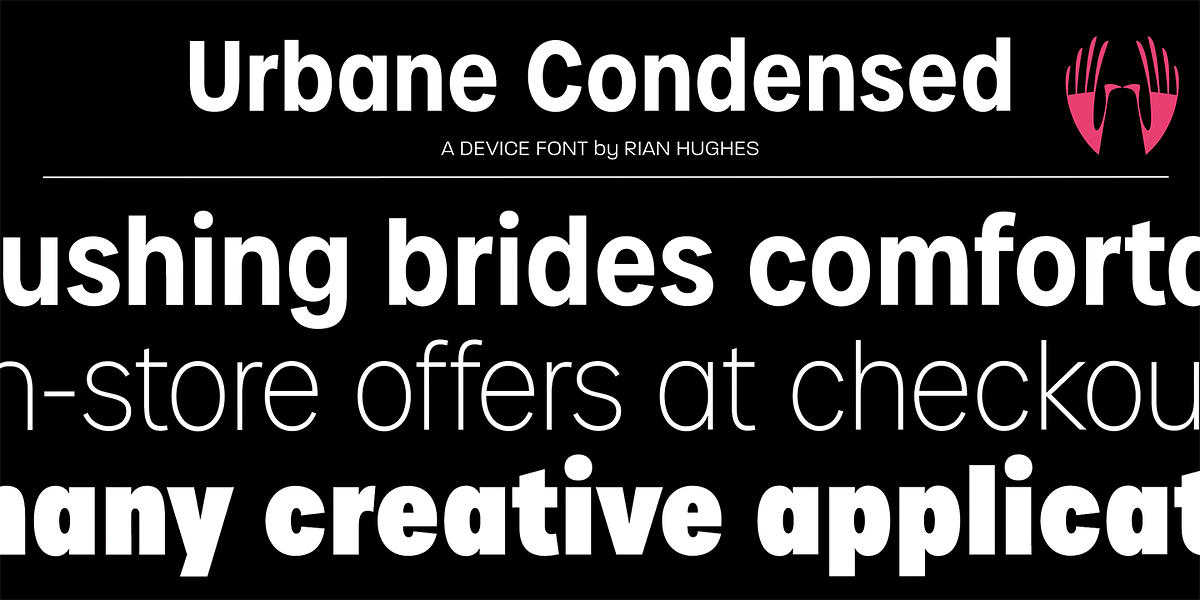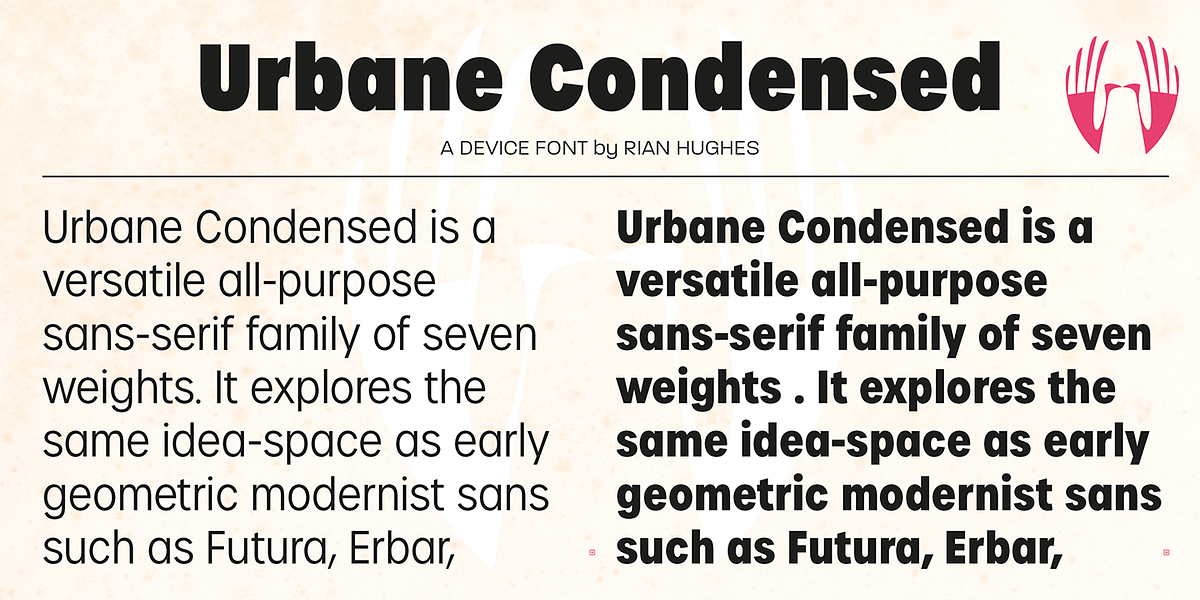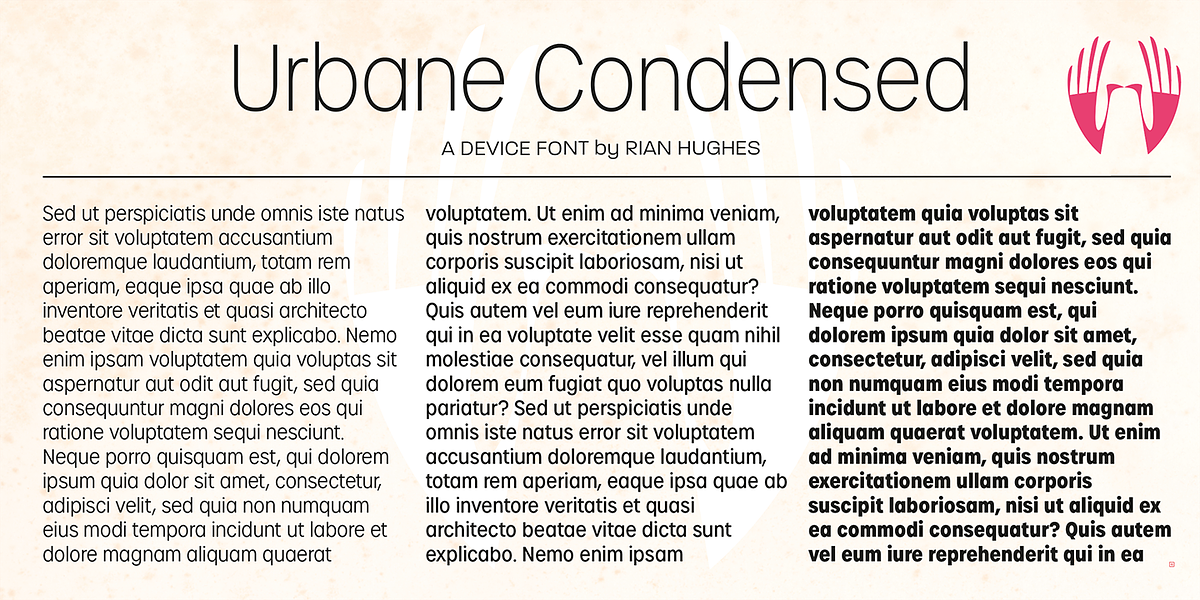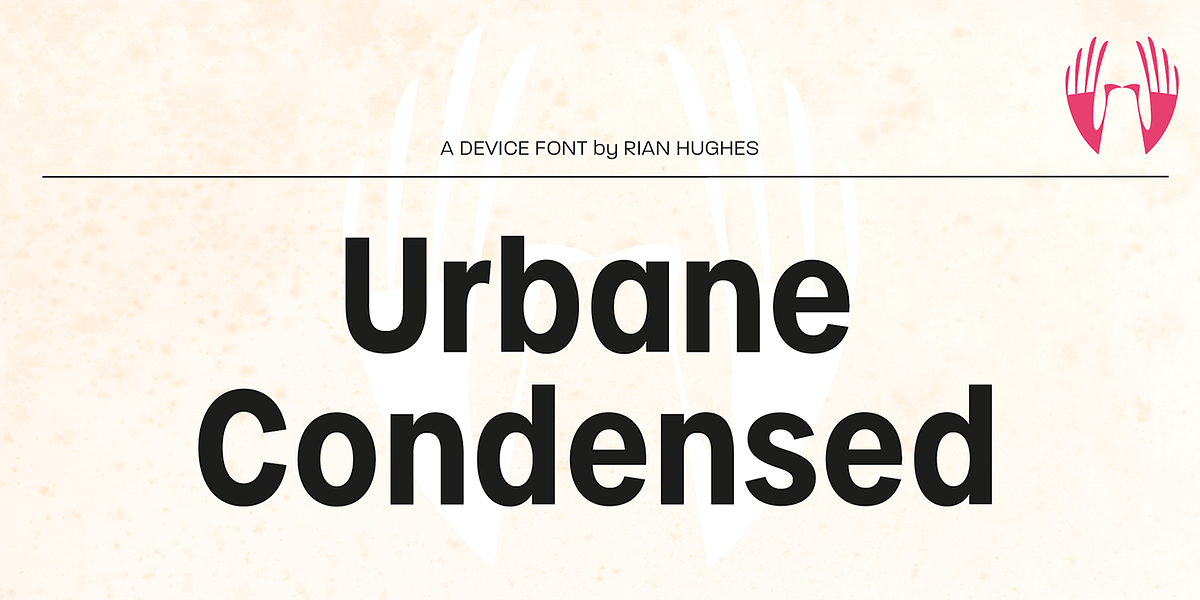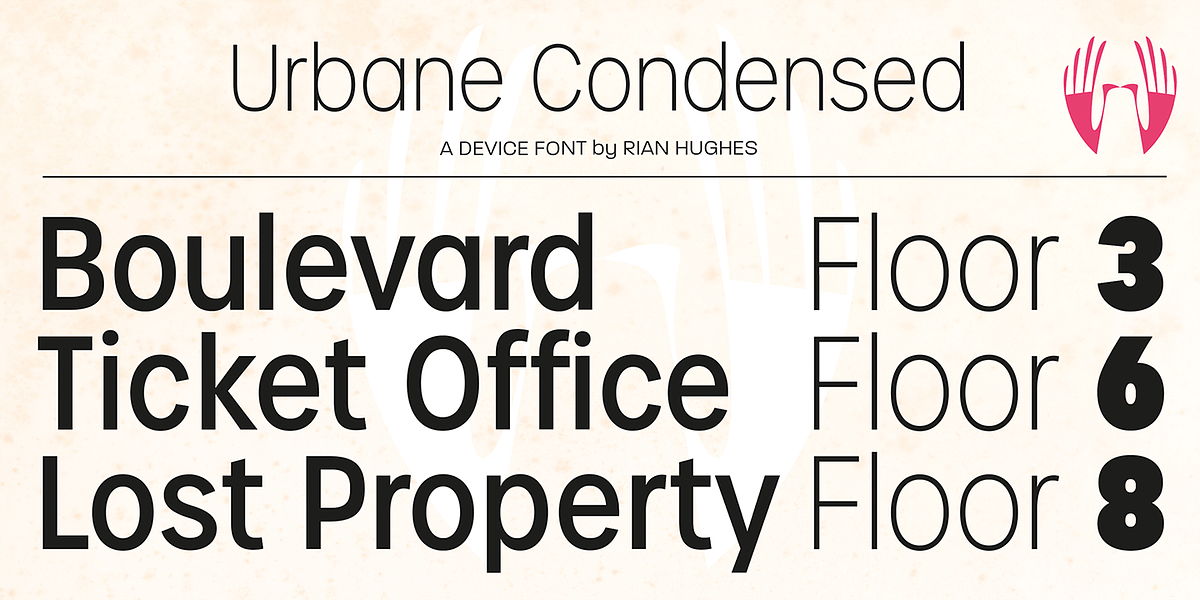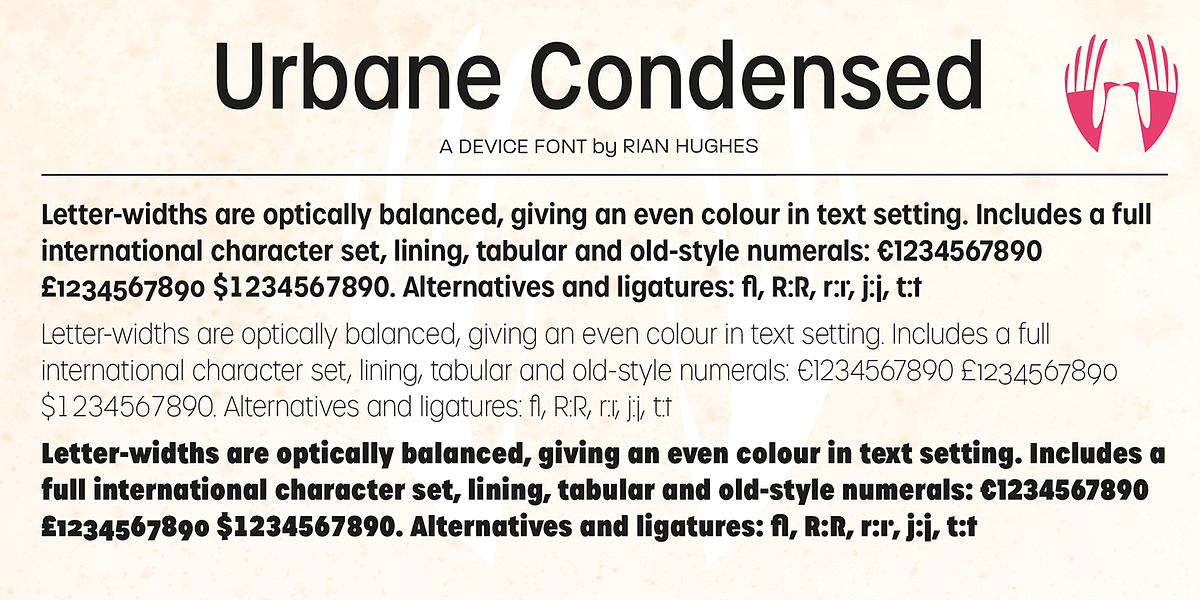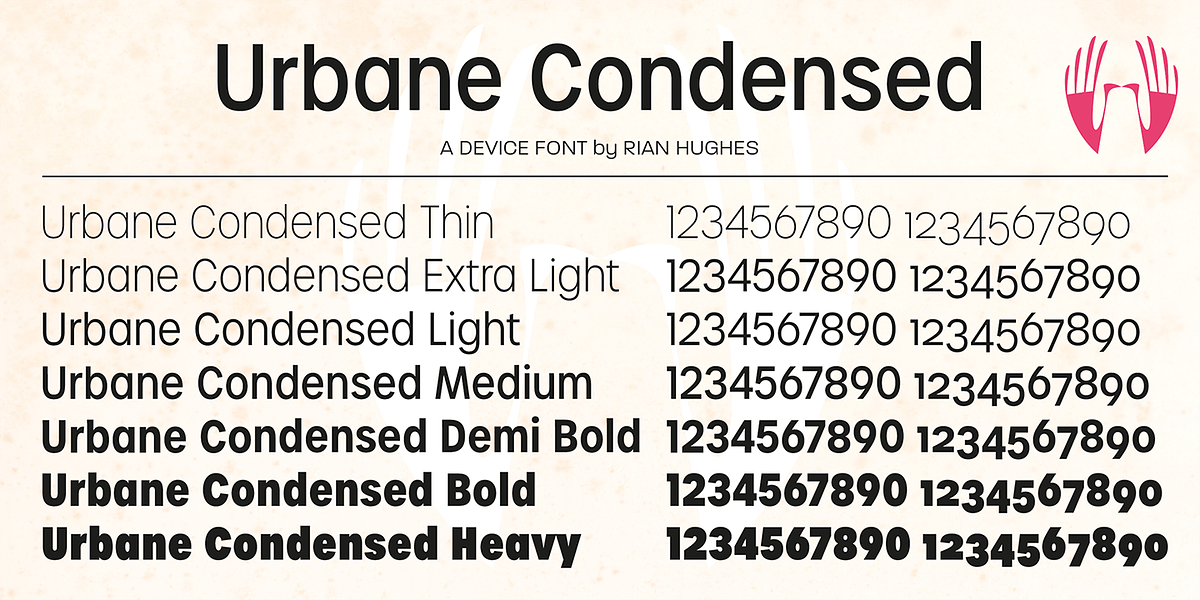
Urbane Condensed
Urbane Condensed is a humanist sans-serif font designed for versatility. It's suitable for both headlines and body text due to its clarity and authoritative presence. The design draws inspiration from early geometric modernist sans serifs like Futura and Erbar, featuring a single-story 'a,' a contemporary high x-height, and slightly condensed bowls. Uniquely, Urbane Condensed employs optically balanced letter widths, resulting in an even color when set. It includes a full international character set and offers lining, tabular, and old-style numerals.